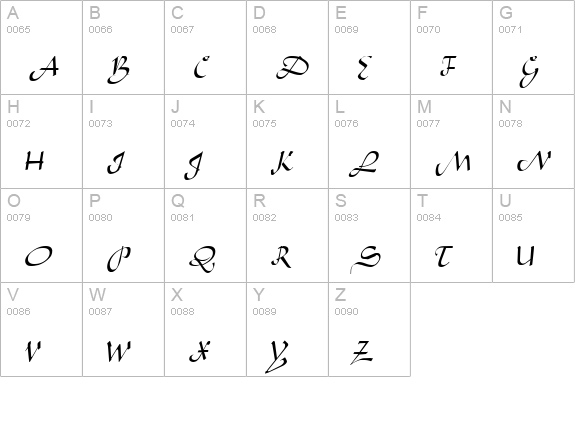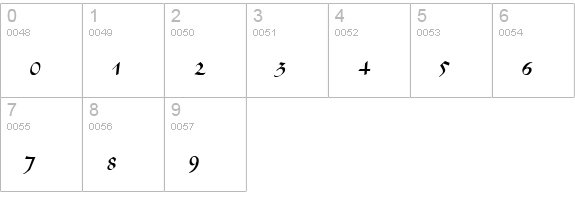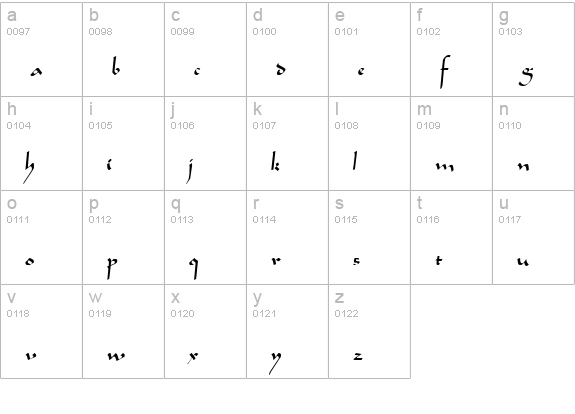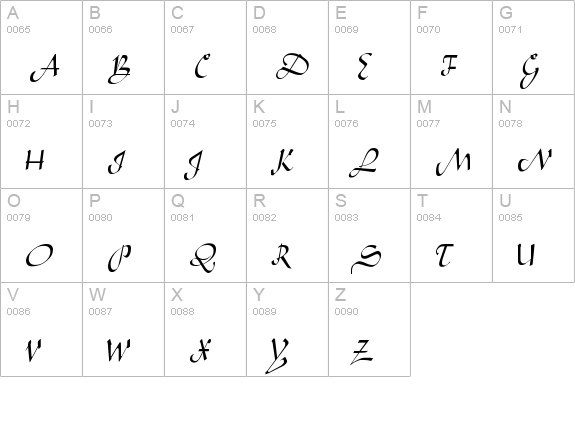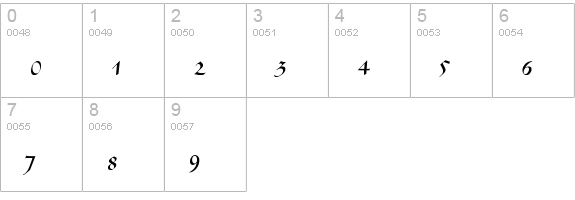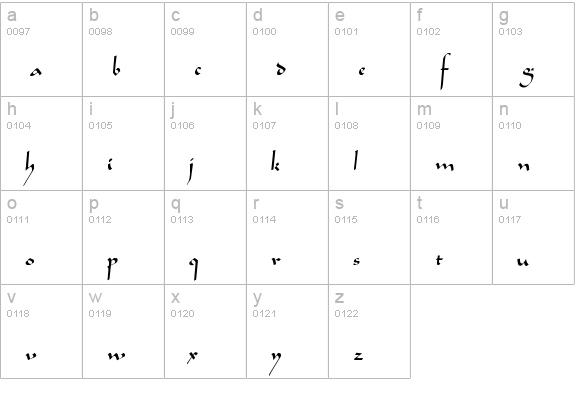
Mocha Normal is the standard, neutral variant in the Mocha typeface family \xE2\x80\x94 well suited to general body text, paragraphs, and standard typographic work.
Mocha Normal font is a versatile and elegant typeface that exudes sophistication and warmth. Its smooth curves and balanced proportions make it perfect for a wide range of design projects, from branding to editorial design. The Mocha Normal font is a classic choice that adds a touch of timeless elegance to any project. What's even better is that Mocha Normal font is available for free download at FontsMarket.com. This means you can easily access and use this beautiful font in your designs without any cost. Don't miss out on this opportunity to enhance your creative projects with the Mocha Normal font today!